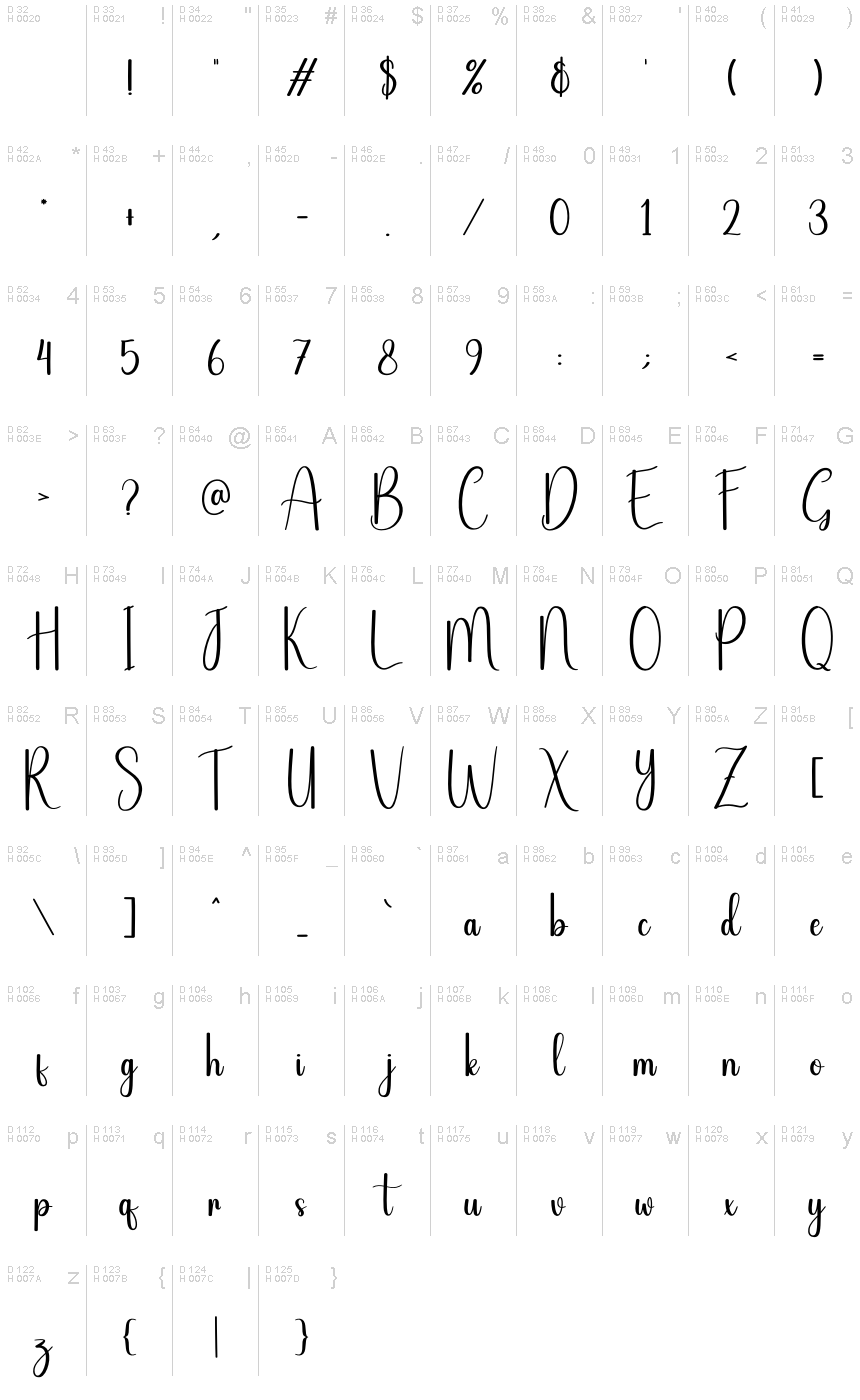
Activity Saturday
Activity Saturday, crafted by Scratchones, is a handwritten font that captures the casual freedom of weekend scribbles. Its condensed form weaves personal charm into each character, creating a cozy and intimate feel. The playful yet elegant strokes embody the spontaneity of impromptu plans and the joy of leisurely pursuits.
This font's warm, inviting aesthetic makes it perfect for personalized greetings, boutique branding, and creative projects that call for a touch of individuality. Activity Saturday brings an authentic handwritten touch to any design, striking a balance between whimsy and sophistication.